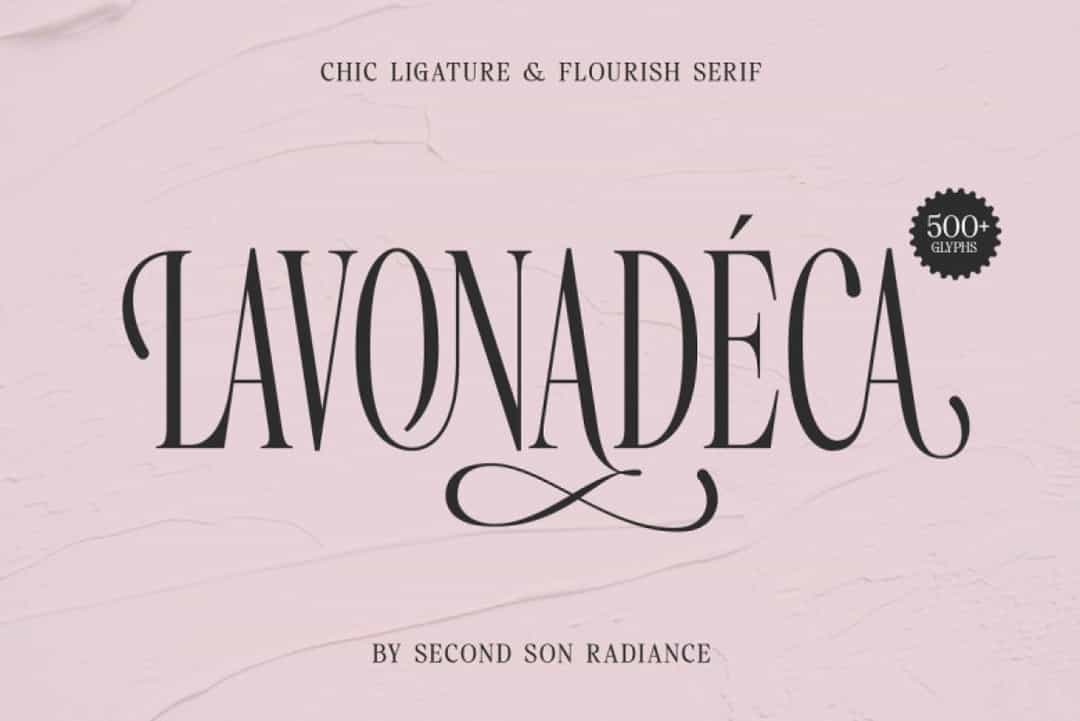
Lavonadeca is an elegant and charming serif font with a stylish appearance. Packed with alternative ligatures that provide users with maximum mixing possibilities, Lavonadeca was developed specifically to produce contemporary yet stylish projects for high-end elegant, feminine, and sophisticated projects.